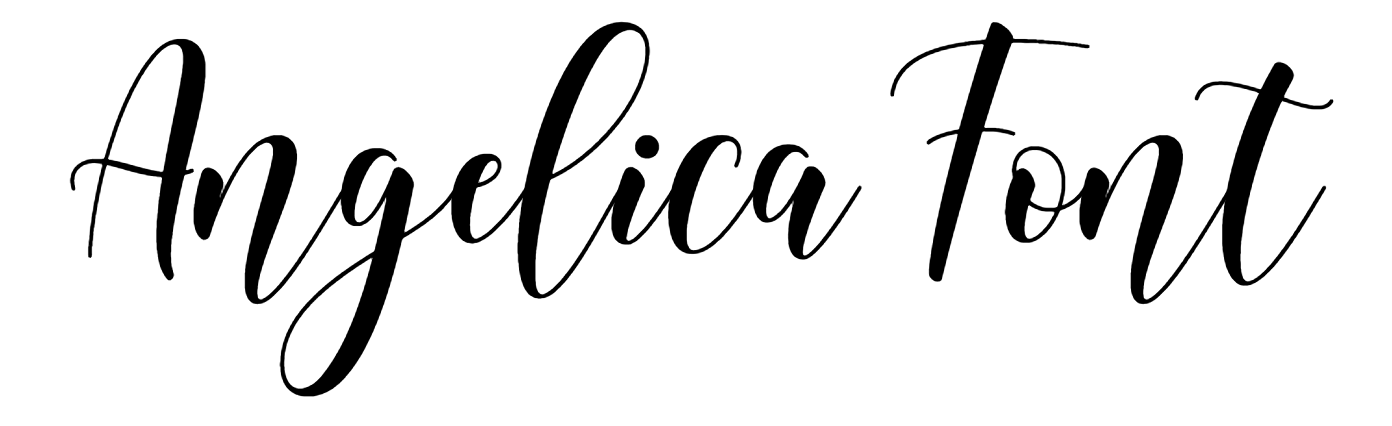
Angelica
Angelica is a calligraphy font made by Greentype (2019). The letters have the smooth movement of real pen lettering, which is why even a single name looks special in it. It's a free download, and you can try it with your own text in the preview above first.
- Designer: Greentype
- Languages: English, Spanish, German and Italian
What You Can Type With Angelica
You get every letter from A to Z in both cases and all the numbers from 0 to 9, which means Angelica can handle full sentences, dates and prices. Everyday marks like &, !, ? and @ are there too. Thanks to its accented letters, it also works for Spanish, German and Italian, not just English.
Where Angelica Works Best
Angelica is a natural fit for wedding invitations, certificates and elegant quotes. Its lowercase letters are small compared to the capitals, so set it a size or two bigger than usual. Script fonts read best in short bursts, so keep it to names, titles and one-line quotes. Skip all caps: script capitals are drawn to start a word, not to fill one.
Who designed Angelica font?
Angelica was designed by Greentype. The copyright line inside the font is dated 2019.
Does Angelica support accented letters?
Yes. Angelica includes the accented letters needed for Spanish, German and Italian, so it works for more than just English.